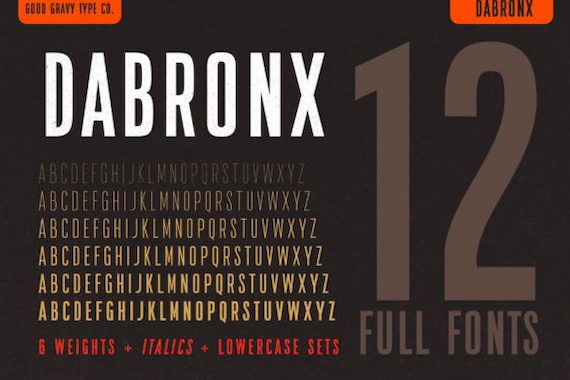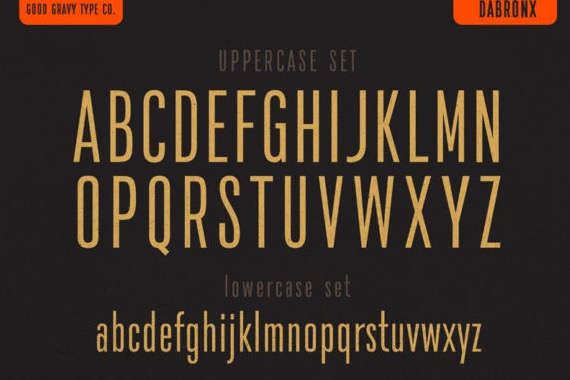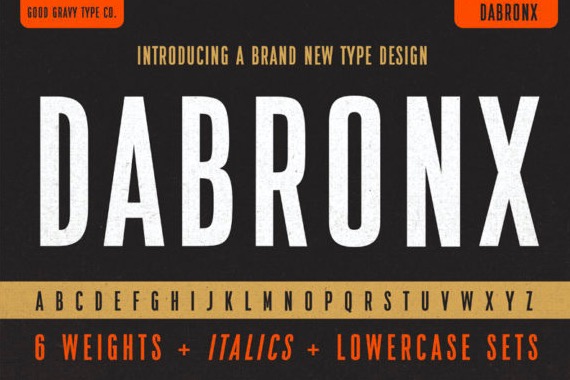
DaBronx Font is a new fresh sans serif font family that was created and shared by Good Gravy Type. It has an elegant and modern feel in every letter along with 12 different righteous weights that make your design incredible versatile and professional.
Dabronx Sans Serif Font